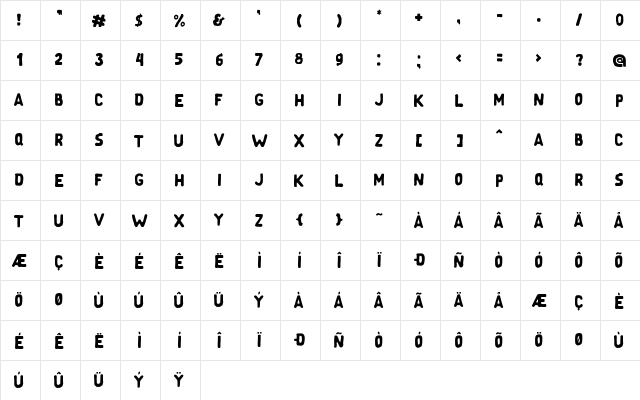
Guper Regular
Design Context for Guper Typeface
Guper offers clean, dependable letterforms without strong stylistic allegiance, making it a practical choice for designers who need flexibility.